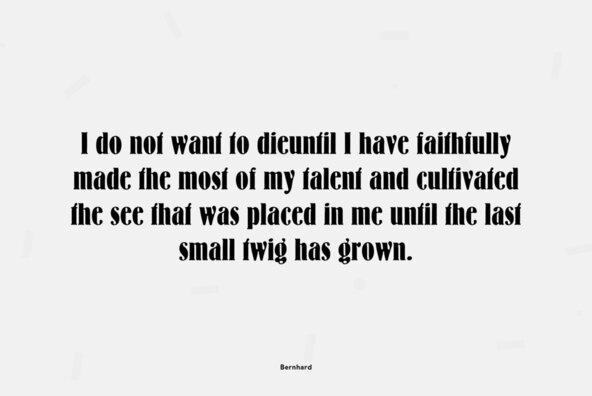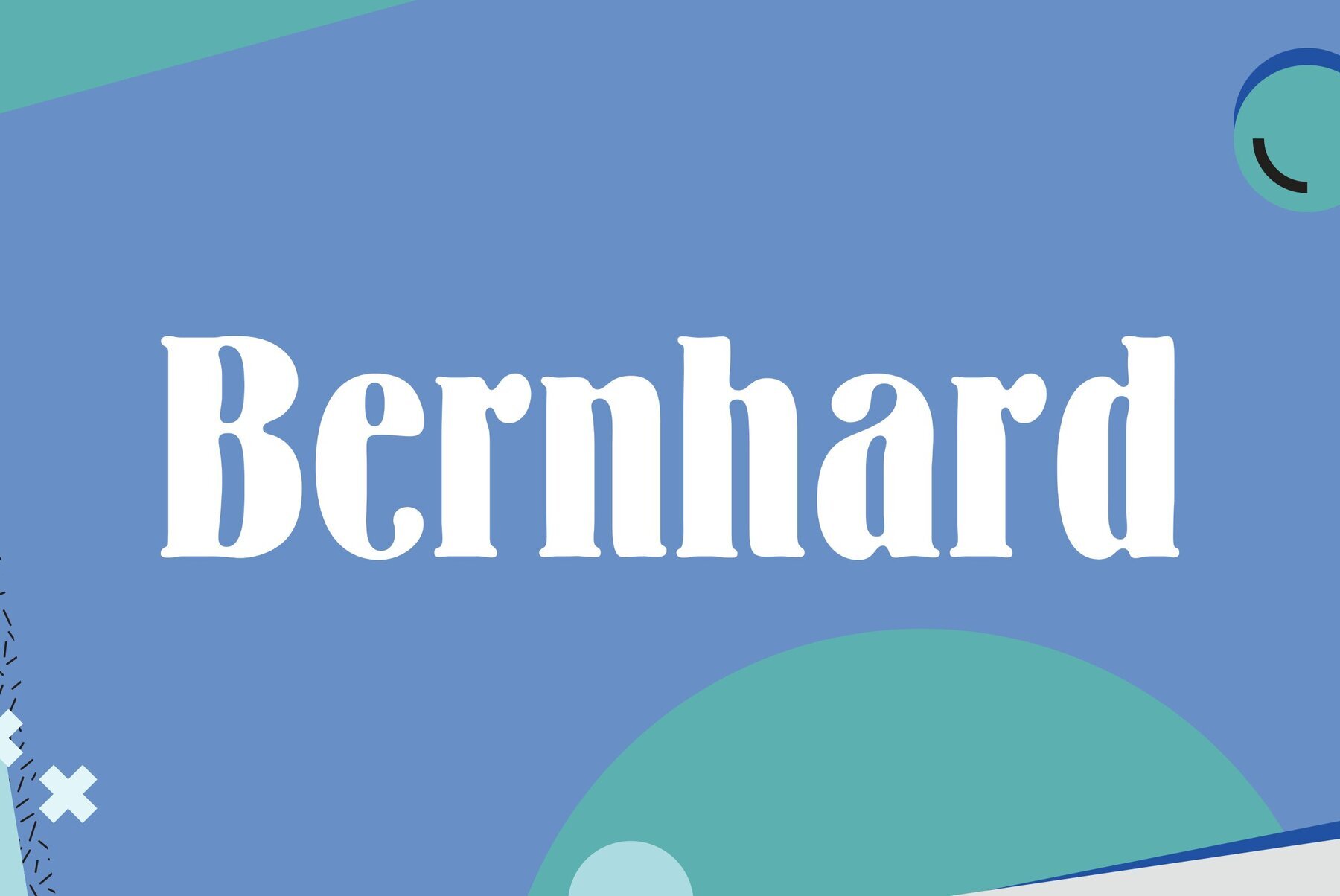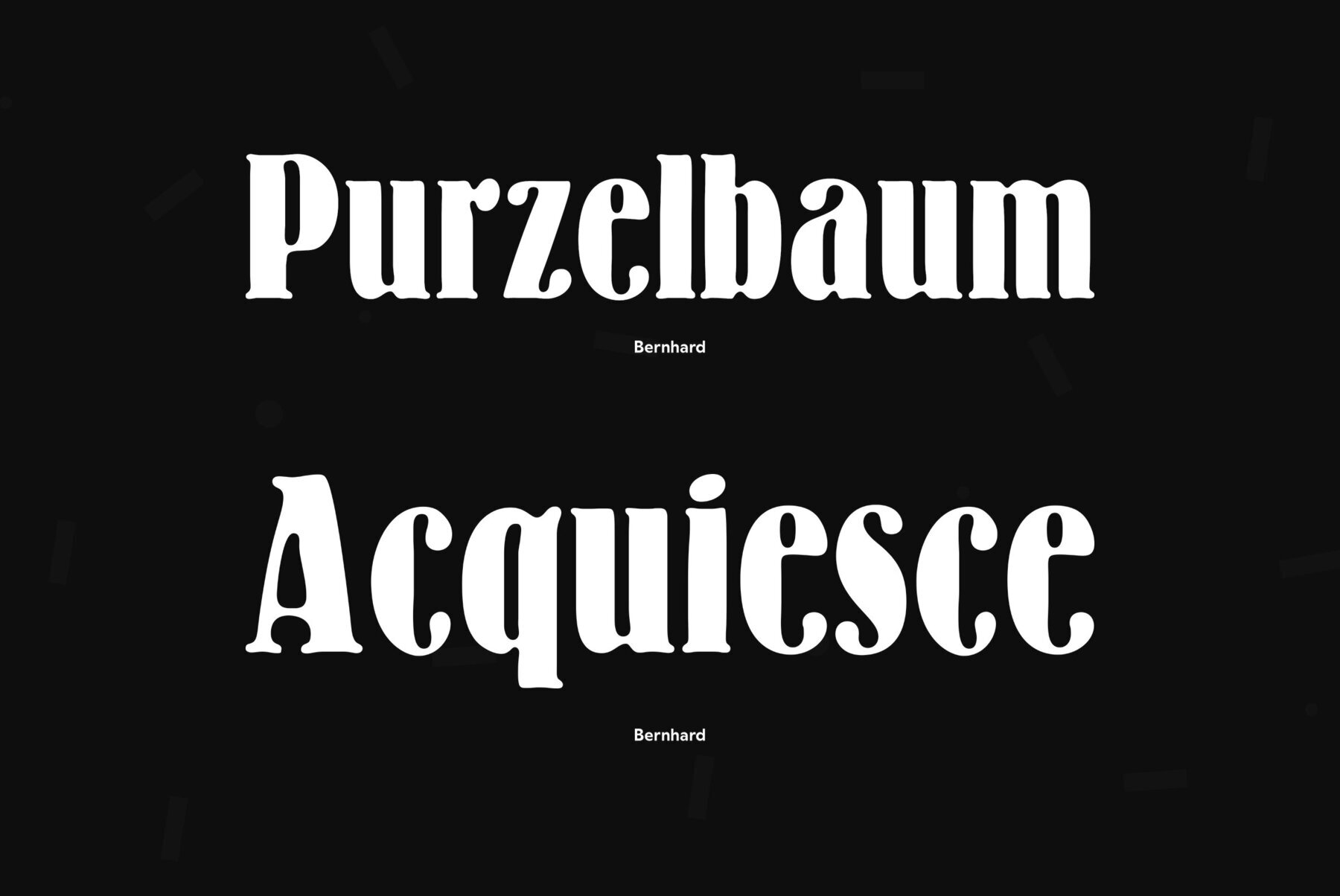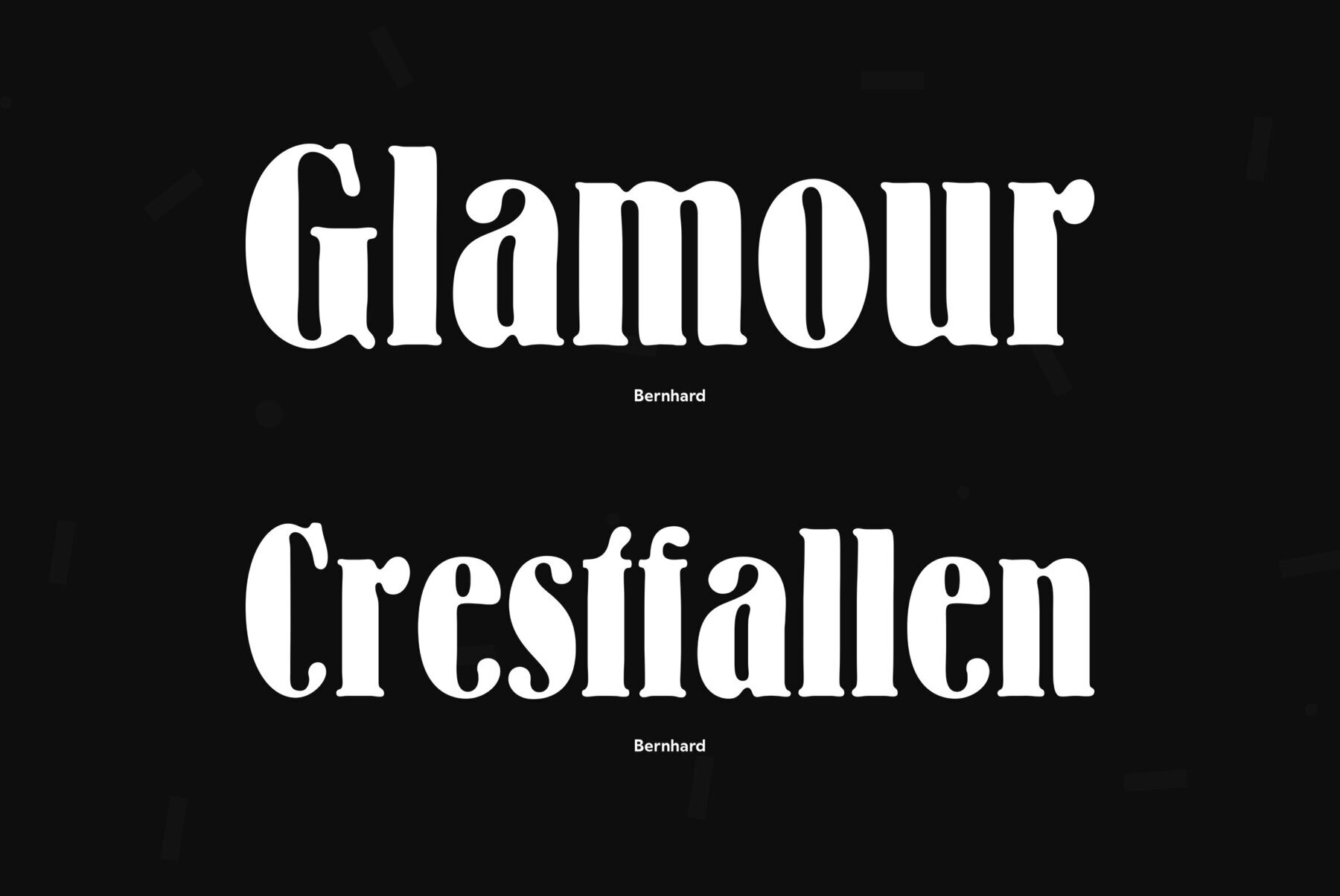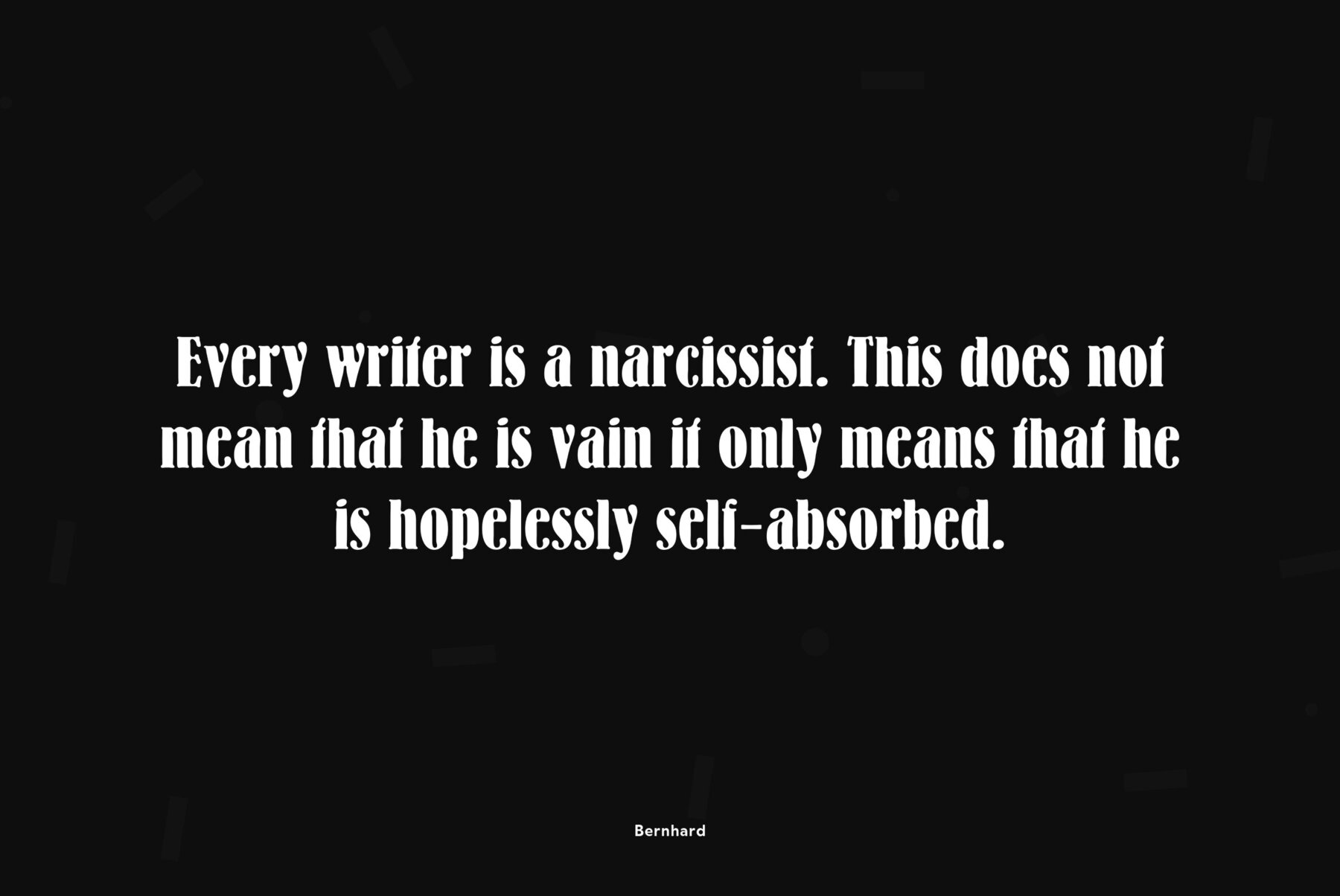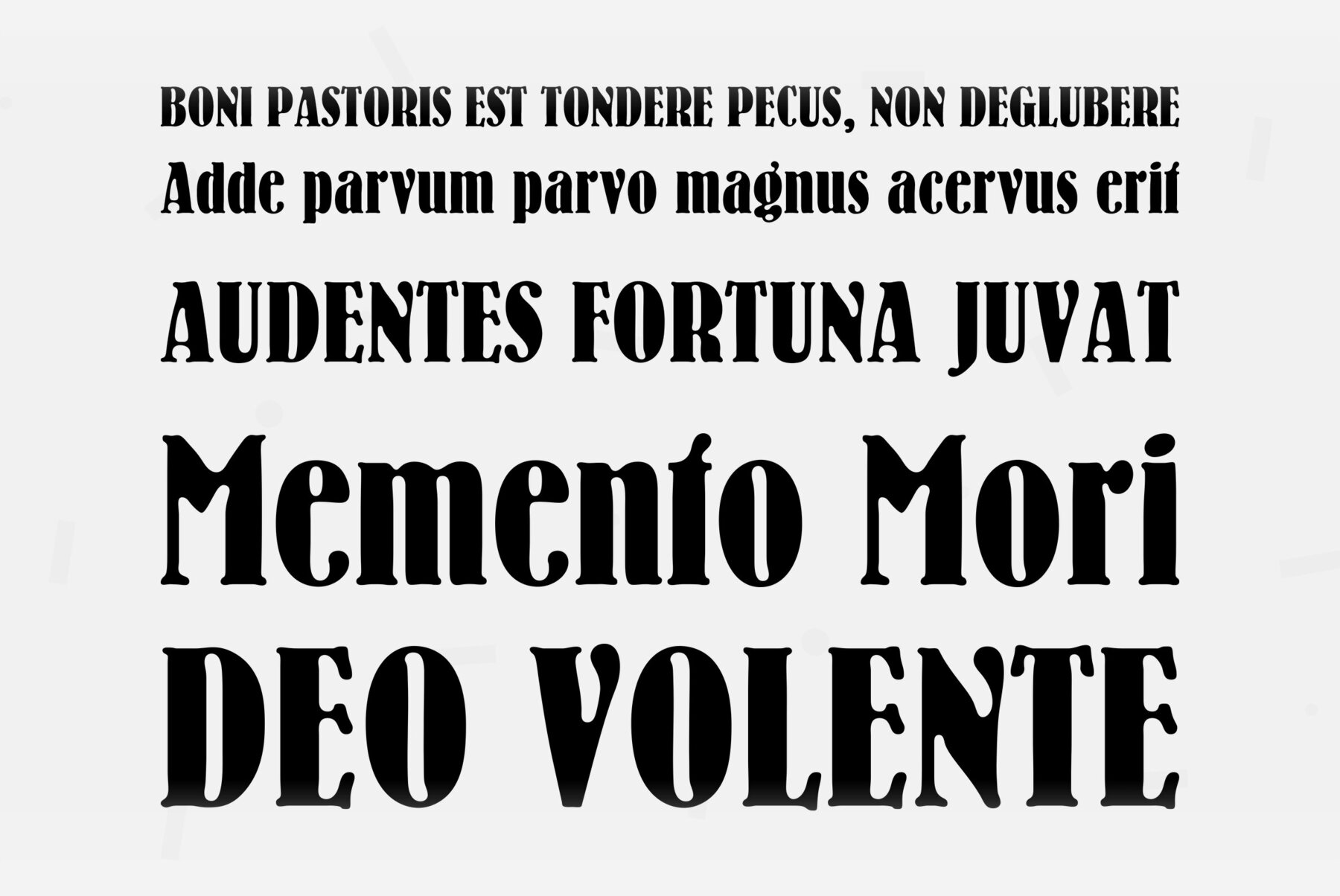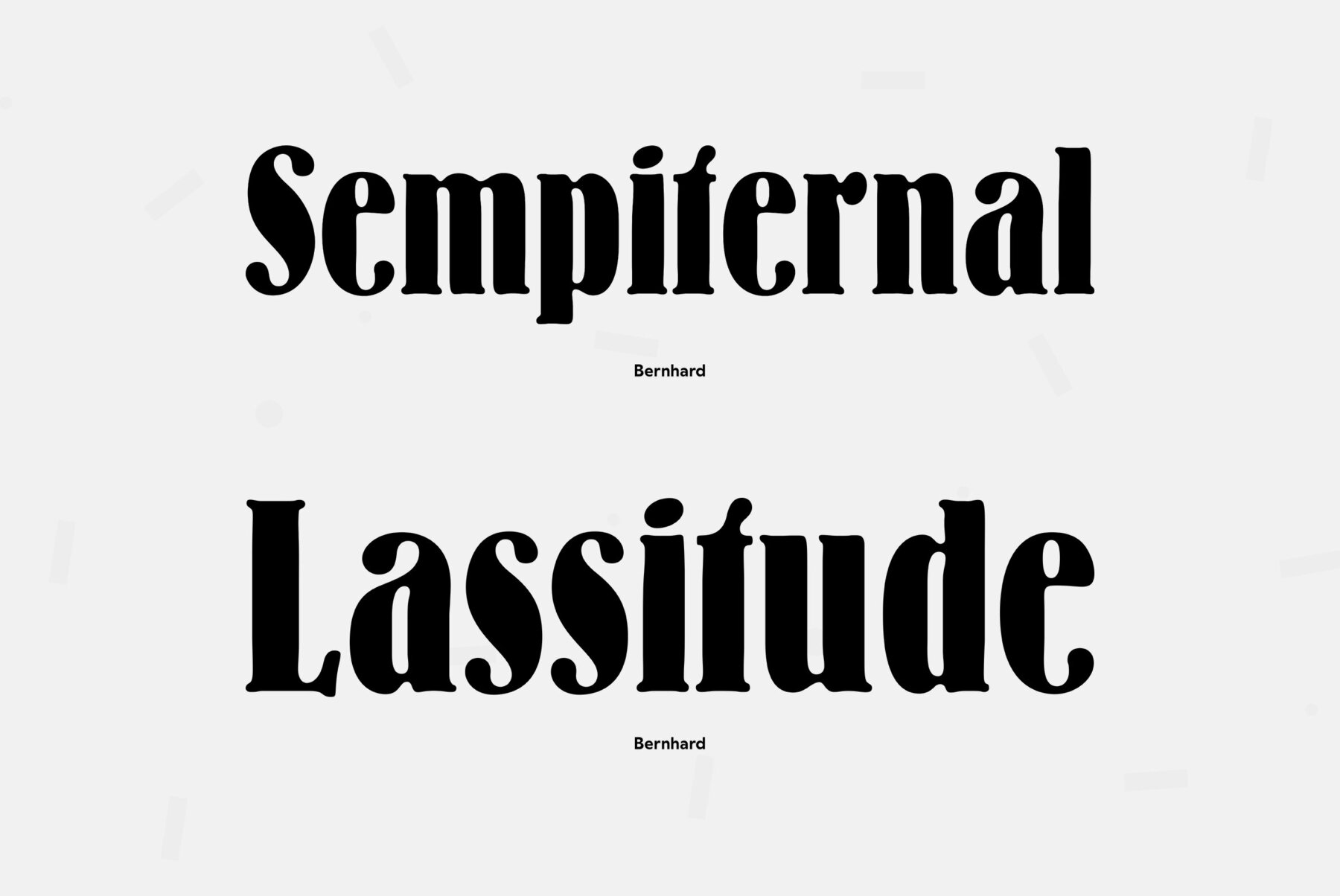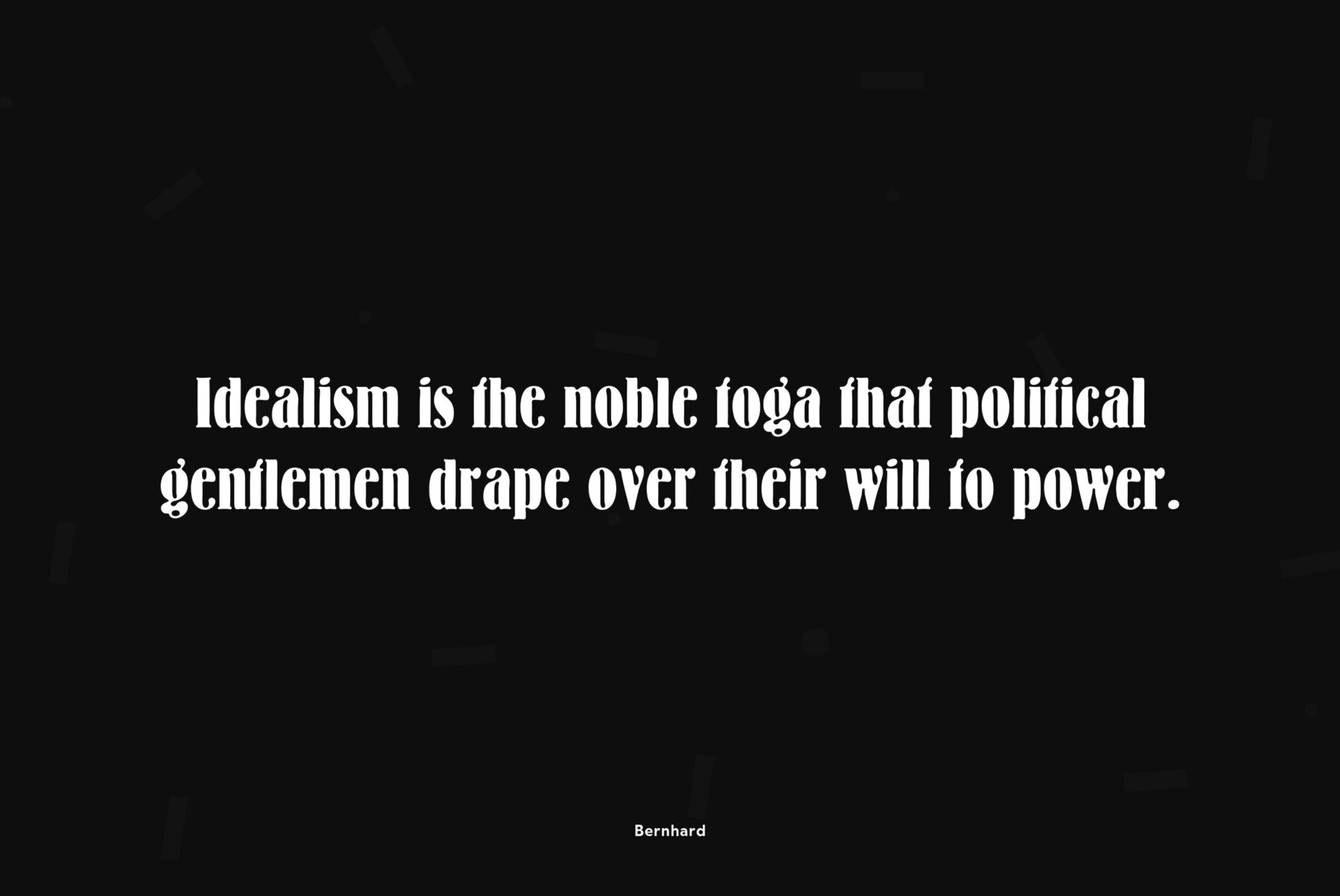
The typeface was designed at ParaType (ParaGraph) in 1993 (by Tatiana Lyskova). Based on Bernhard Condensed typeface of the Bauer company, 1912 by Lucian Bernhard). For use in advertising and display typography.